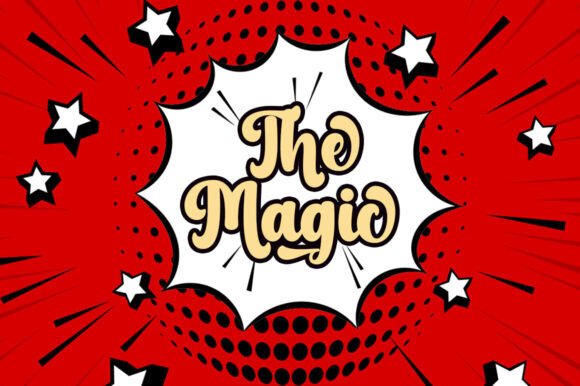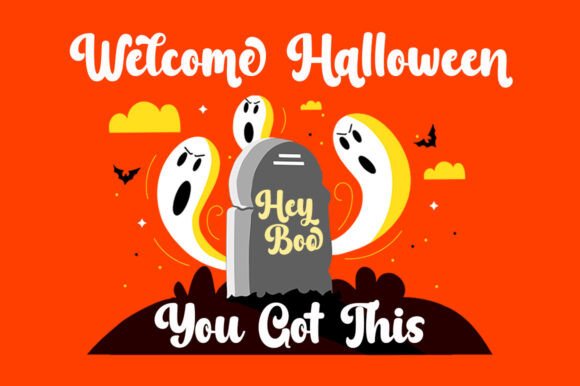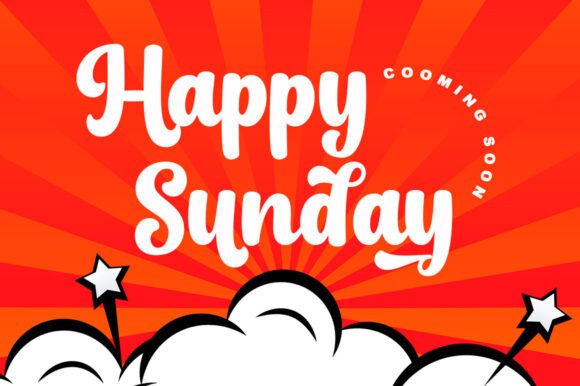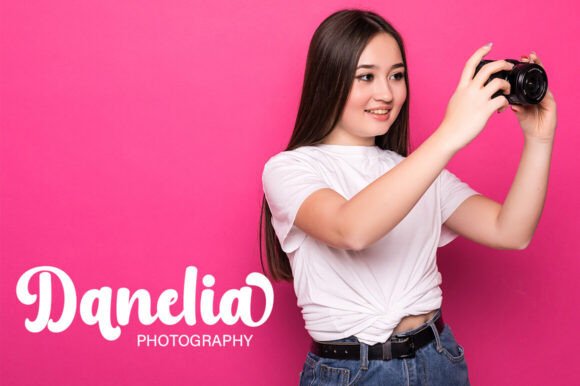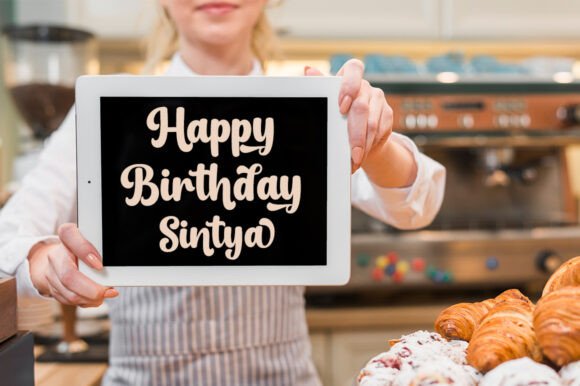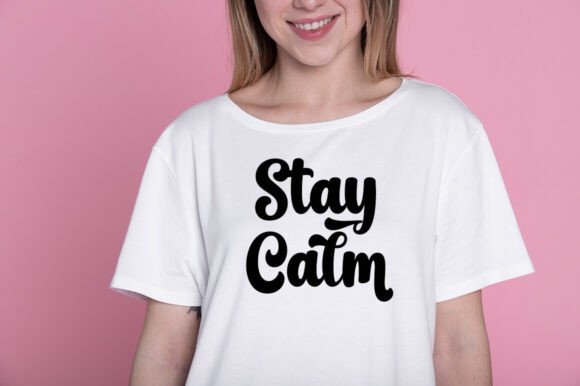
Introduction to Pinky Magic Font
Pinky Magic is playfully nostalgic and delivers an incredible display font.
Use this display font to add that special retro touch to any design idea you can think of Masterfully designed to become a true favorite, this font has the potential to bring each of your creative ideas to the highest level.